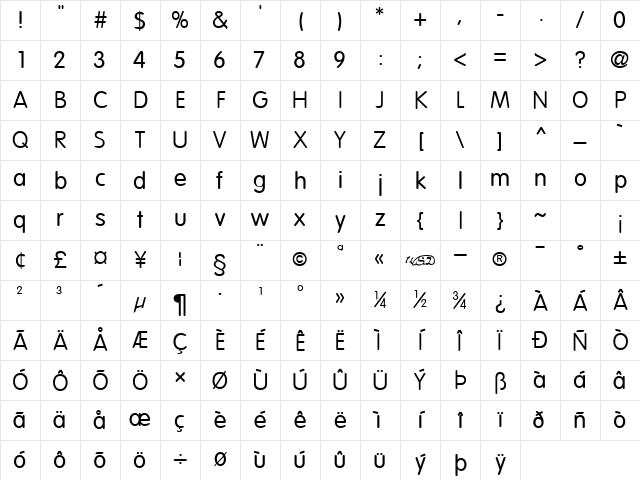
Vagabond normal
Style: normal
Vagabond Family
Vagabond normal
Design Context for Vagabond
Vagabond is a composed and adaptable typeface that performs quietly and consistently across a wide range of design contexts.